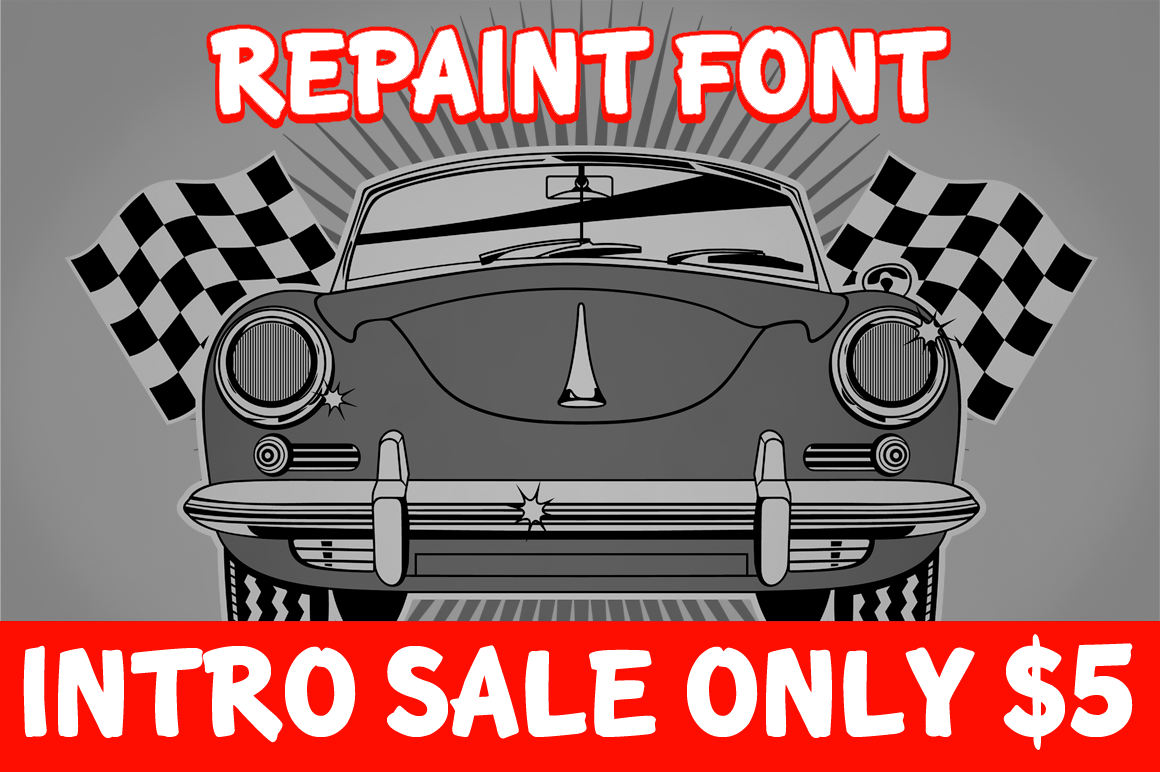
About this font:
Repaint is the little brothther of roadbrush, the font was inspired by the mid-20th-century hand lettering. Repaint & Repair is a retro brush-style script that I re-designed and completely re-mastered. Repaint is a powerful font that can be used for logotype, packaging, posters, T-shirts, signage & design projects with a retro & vintage feel.
Repaint comes only in the uppercase style that contain all upper characters, punctuation, numerals and mathematical operators, as well as all accented characters.